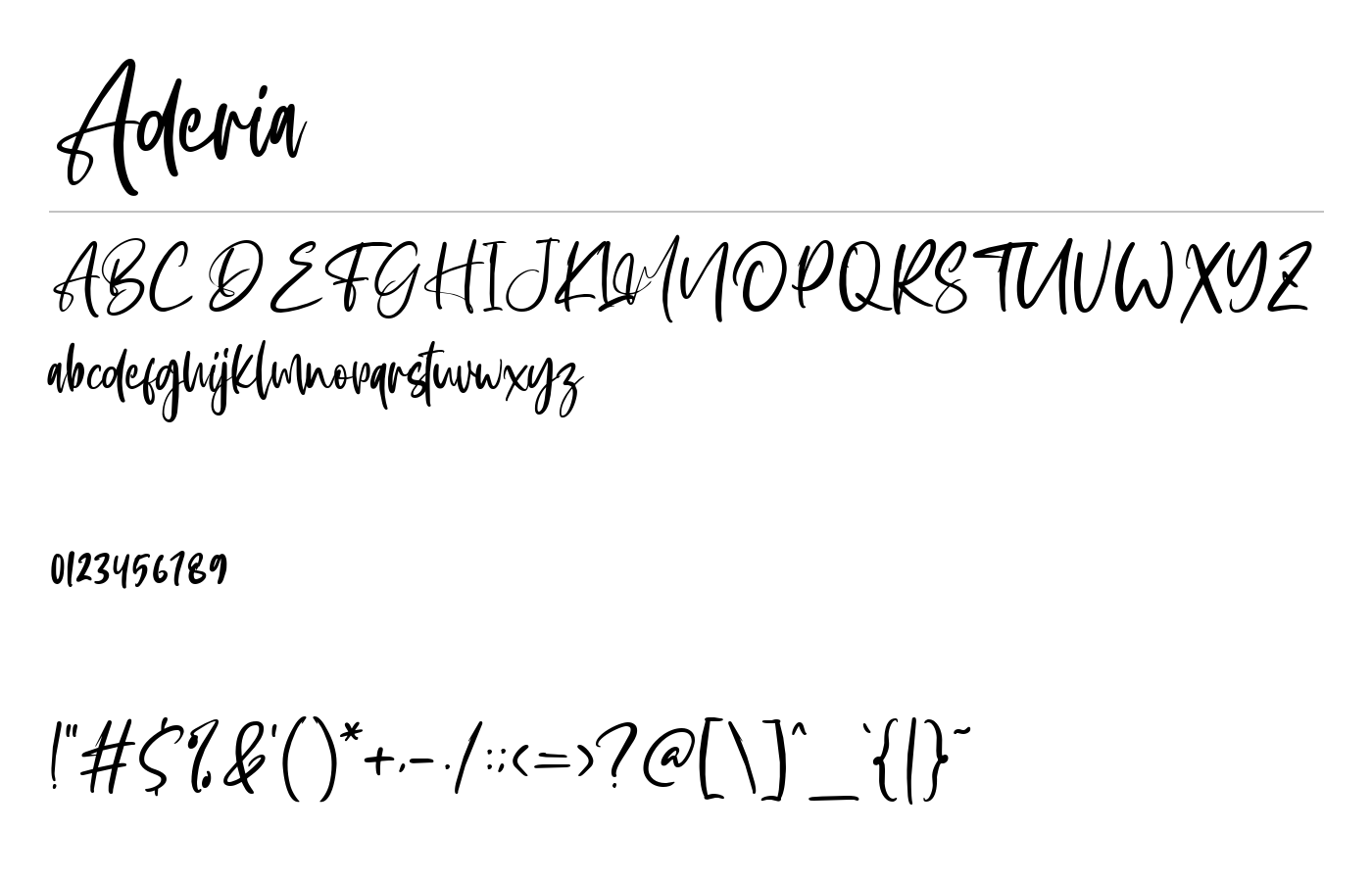
Aderia is a lively handwritten script font with a casual, modern feel. Its fluid strokes and varying thicknesses give it an elegant yet approachable personality, making it perfect for creative branding, invitations, and social media designs that seek a personal touch. This font works especially well for headlines and logos where a warm, handwritten style can stand out.
Aderia Font
About Aderia Font
| Font family | Aderia Font |
| Designer | Vztype || Randi Ilhamsyah |